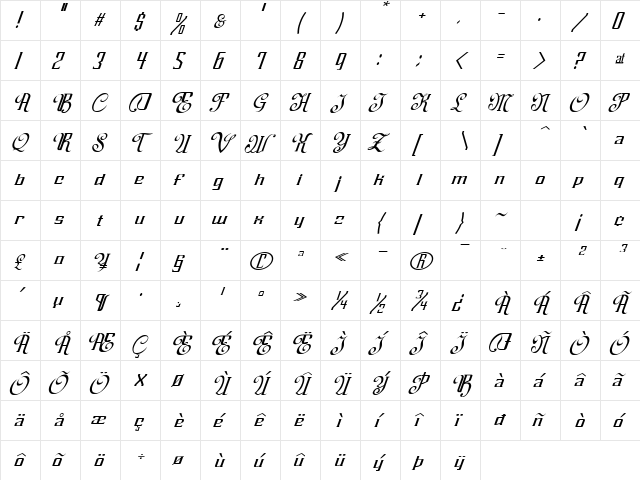
Charisma Oblique
Design Context for Charisma Typeface
Charisma is a composed and adaptable typeface that performs quietly and consistently across a wide range of design contexts. The slanted form adds forward momentum and visual energy.
Pro Tip: Try Charisma for annotation and caption copy alongside an upright companion — the contrast in angle creates a dynamic but ordered typographic system.